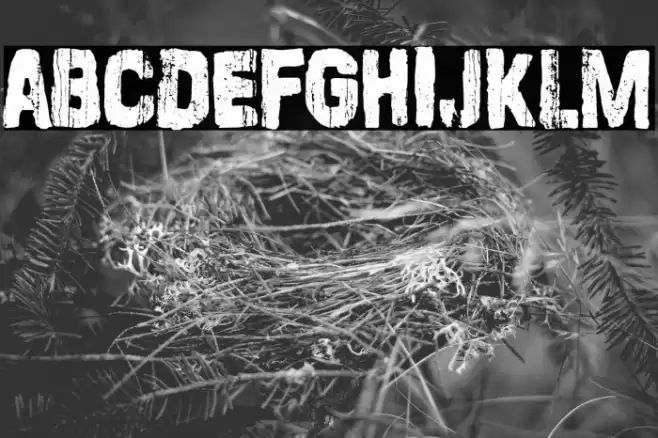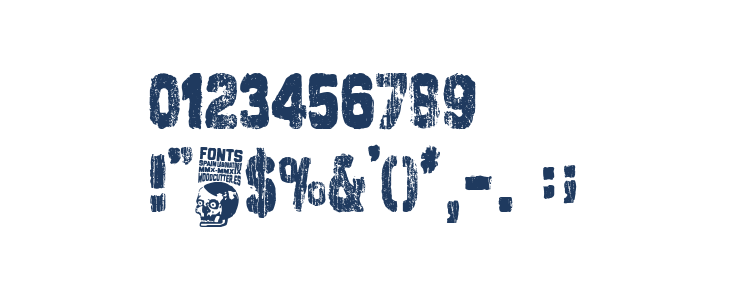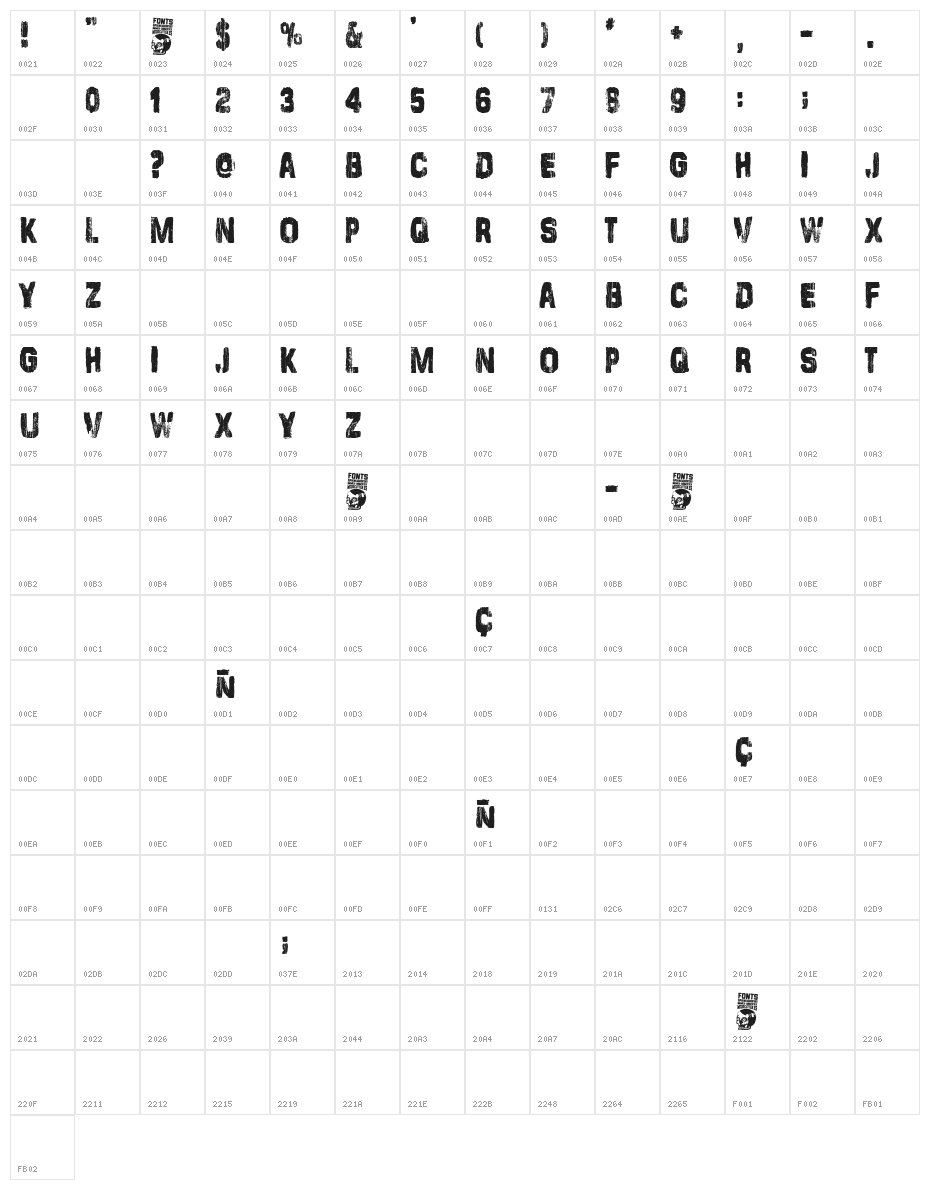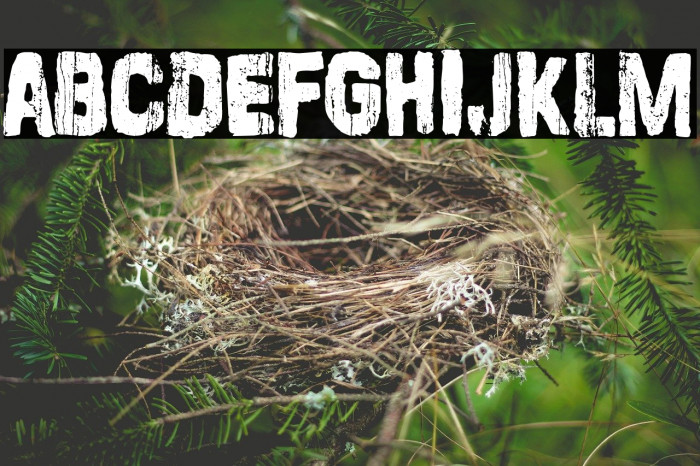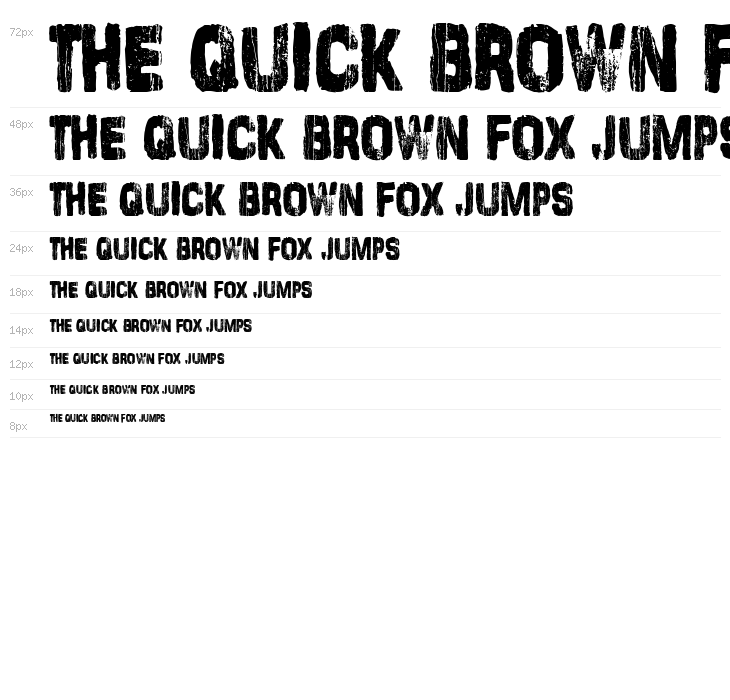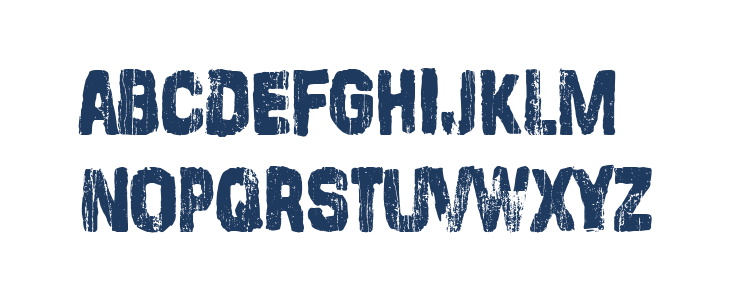
Stamp Empire Font
Stamp Empire Description
This font features a rugged, distressed appearance, reminiscent of old stamps or worn-out typewriter keys. Each character is bold and heavily textured, giving it a gritty, industrial feel. The uppercase and lowercase letters maintain a consistent style, with rough edges and uneven surfaces that suggest a vintage, handcrafted look. Numbers and special characters are equally distressed, adding to the cohesive aesthetic. This font is ideal for projects that require a bold statement with a touch of nostalgia or urban edge. Its unique style makes it stand out, perfect for capturing attention in various design contexts.
A bold, distressed font with a rugged, vintage appearance from Uncategorized fonts.
- Proposed Projects: Ideal for posters, album covers, branding for edgy or vintage-themed products, and any design needing a bold, textured look.
- Overall Style: Vintage, Industrial